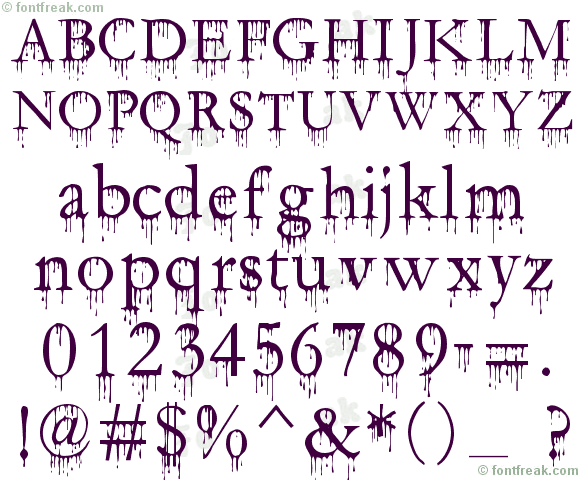
SF Gushing Meadow
SF Gushing Meadow SC
Gushing Meadow by Shyfonts Type Foundry is a captivating display font that combines artistic flair with legibility, making it a standout choice for various creative projects. This freeware font features a unique blend of whimsical and organic design elements, perfect for capturing attention while maintaining clarity. With its bold stroke weight and moderate contrast, Gushing Meadow offers a visually striking appearance that is both playful and sophisticated. The rounded edges and flowing forms evoke the feeling of nature, making it ideal for designs that aim to convey warmth and friendliness.
The font's spacious letter spacing enhances readability, allowing it to shine in various applications. Gushing Meadow is particularly well-suited for wedding invitations, where its charming aesthetic can set a romantic tone, as well as for greeting cards that require a personal touch. Its vibrant character makes it a fantastic choice for movie posters, particularly in genres that embrace fantasy or adventure themes. Additionally, this font can elevate restaurant menus, especially for establishments that focus on organic or locally sourced cuisine, providing a rustic yet elegant vibe.
Targeting graphic designers, small business owners, and content creators, Gushing Meadow is versatile enough to cater to a wide audience seeking to infuse their projects with creativity. Whether you're designing for print or digital media, this font can effortlessly enhance your work.